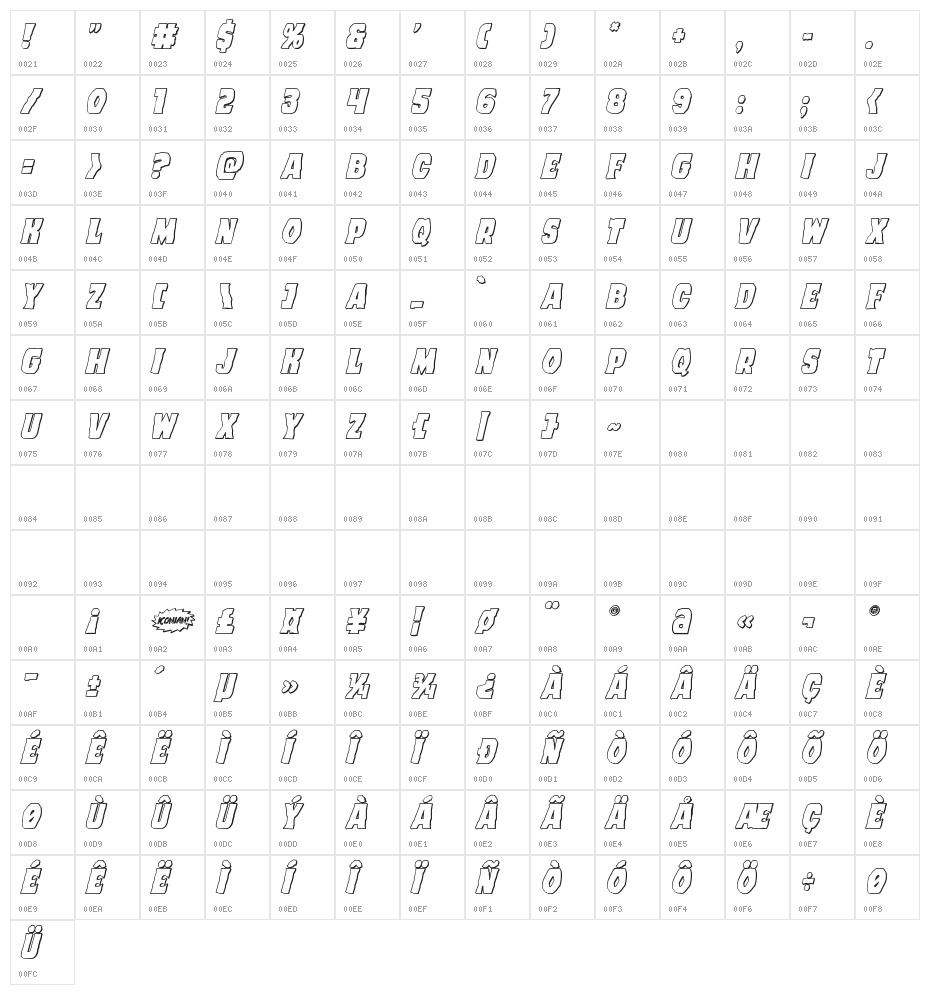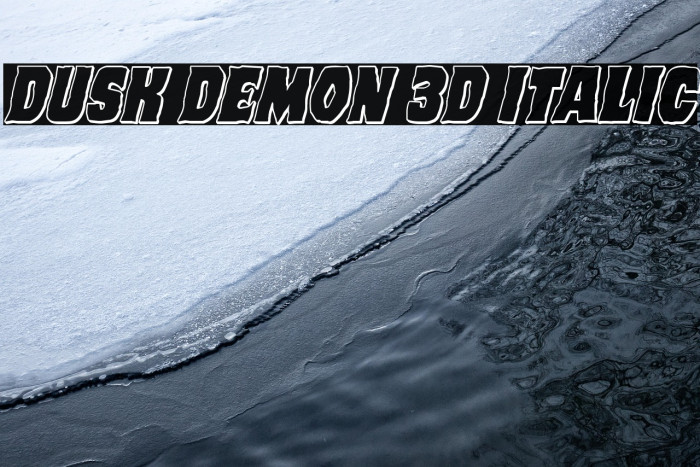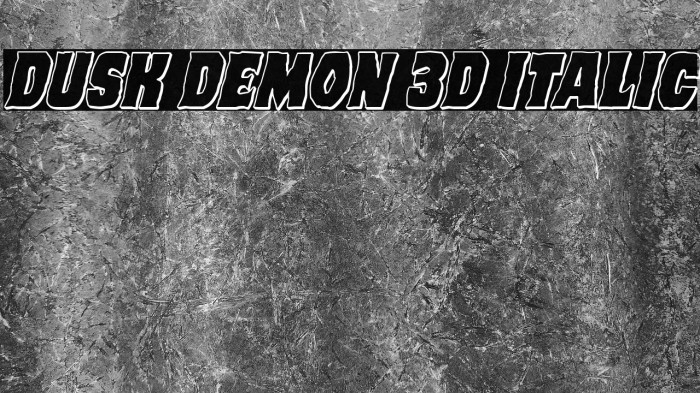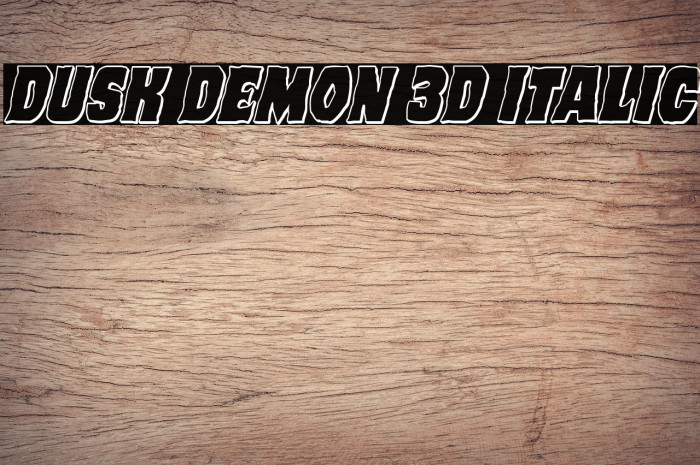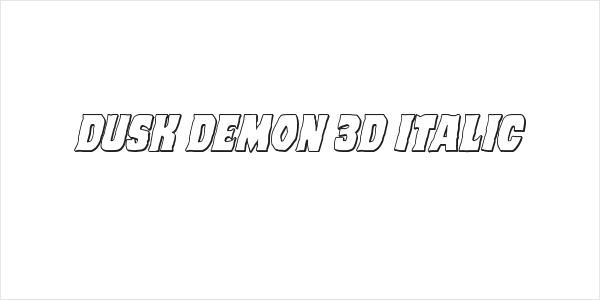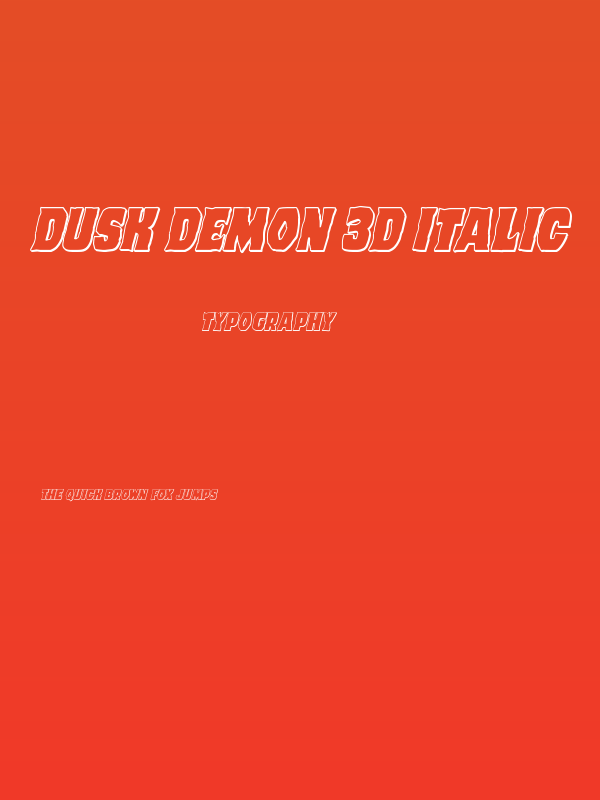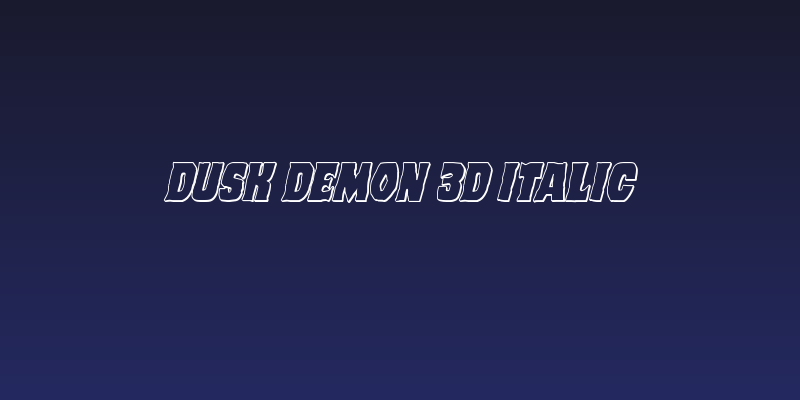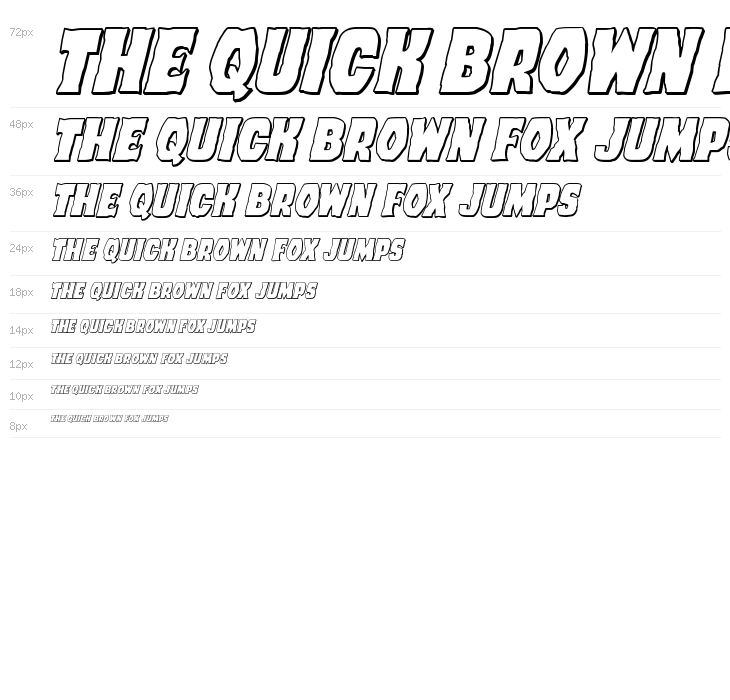
Dusk Demon 3D Italic Font
Dusk Demon 3D Italic Description
This font features a bold and dynamic 3D style with italicized characters, giving it a sense of movement and depth. The letters are robust and have a strong presence, making them ideal for attention-grabbing designs. The 3D effect is achieved through a shadow-like outline that enhances the dimensionality of each character. The uppercase and lowercase letters maintain a consistent style, while the numbers and special characters complement the overall aesthetic. This font is perfect for projects that require a bold and impactful visual statement.
| Proposed Projects | Ideal for posters, video game titles, comic book covers, and any design needing a bold, eye-catching font. |